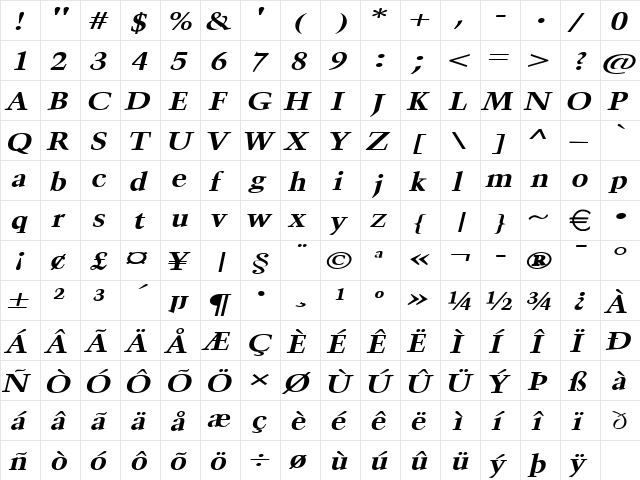
HornExtended BoldItalic Font Preview
HornExtended BoldItalic
Design Context for HornExtended Typeface
HornExtended is a composed and adaptable typeface that performs quietly and consistently across a wide range of design contexts. The dynamic lean of this cut emphasises speed and emphasis in any layout. Its bold stroke weight gives it real presence on the page.